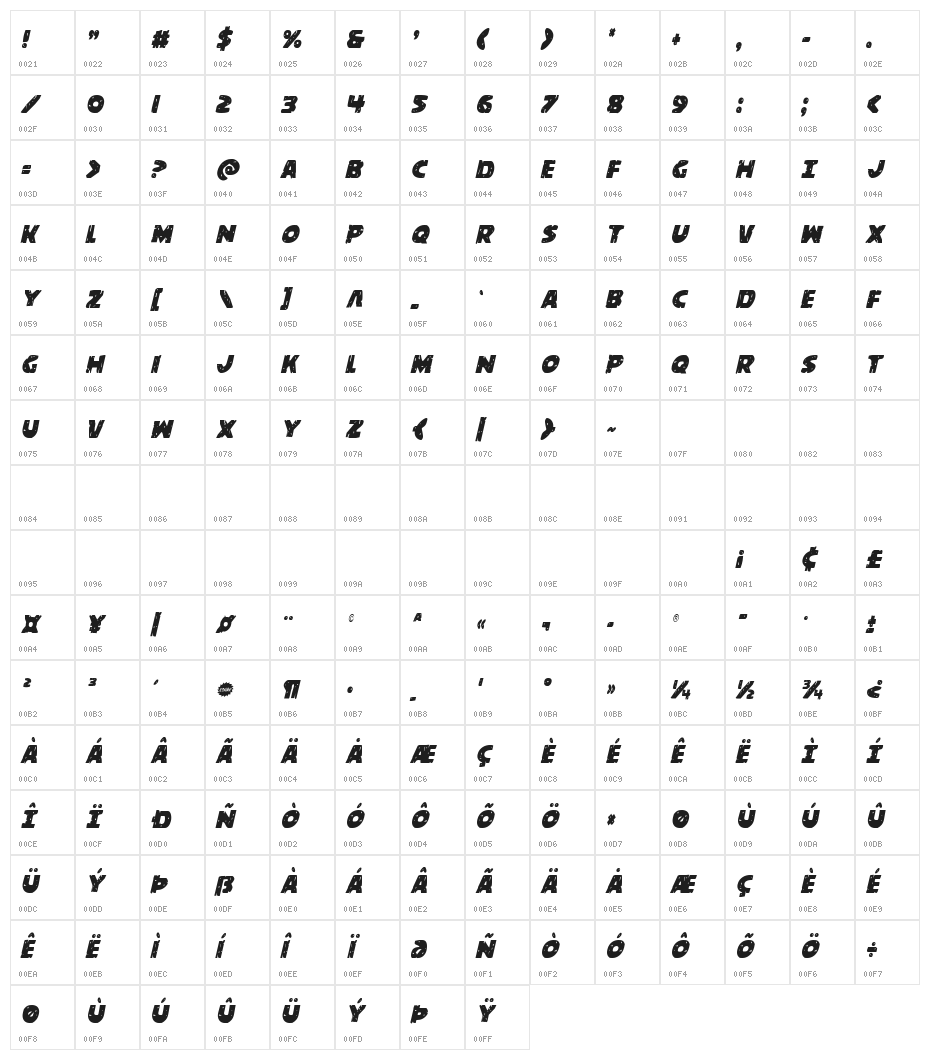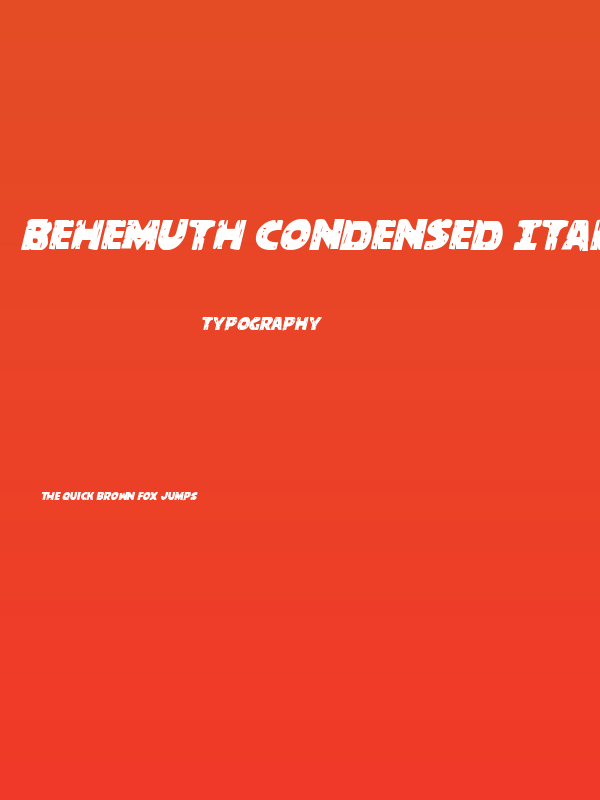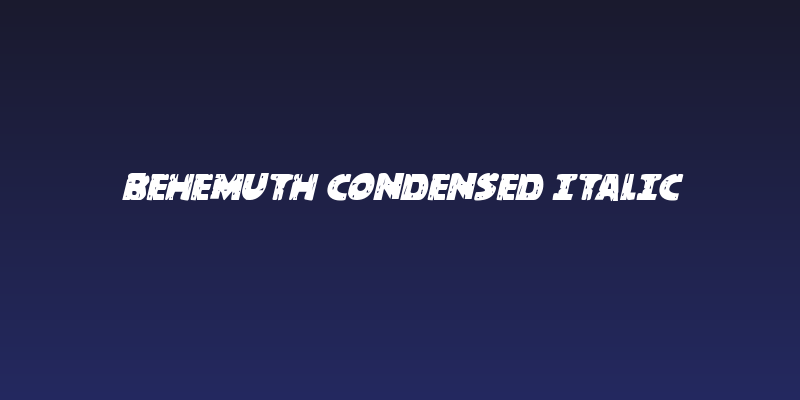
Behemuth Condensed Italic Font
Behemuth Condensed Italic Description
This font features a bold and dynamic style with a distressed texture that gives it a rugged and edgy appearance. The characters are condensed and italicized, adding a sense of movement and urgency. The bold strokes and irregular edges create a visually striking effect, making it ideal for attention-grabbing designs. The uppercase and lowercase letters maintain a consistent style, while the numbers and special characters complement the overall aesthetic. This font is perfect for projects that require a bold statement, such as posters, album covers, or branding materials.
| Proposed Projects | Ideal for posters, album covers, branding materials, and any design needing a bold, edgy look. |